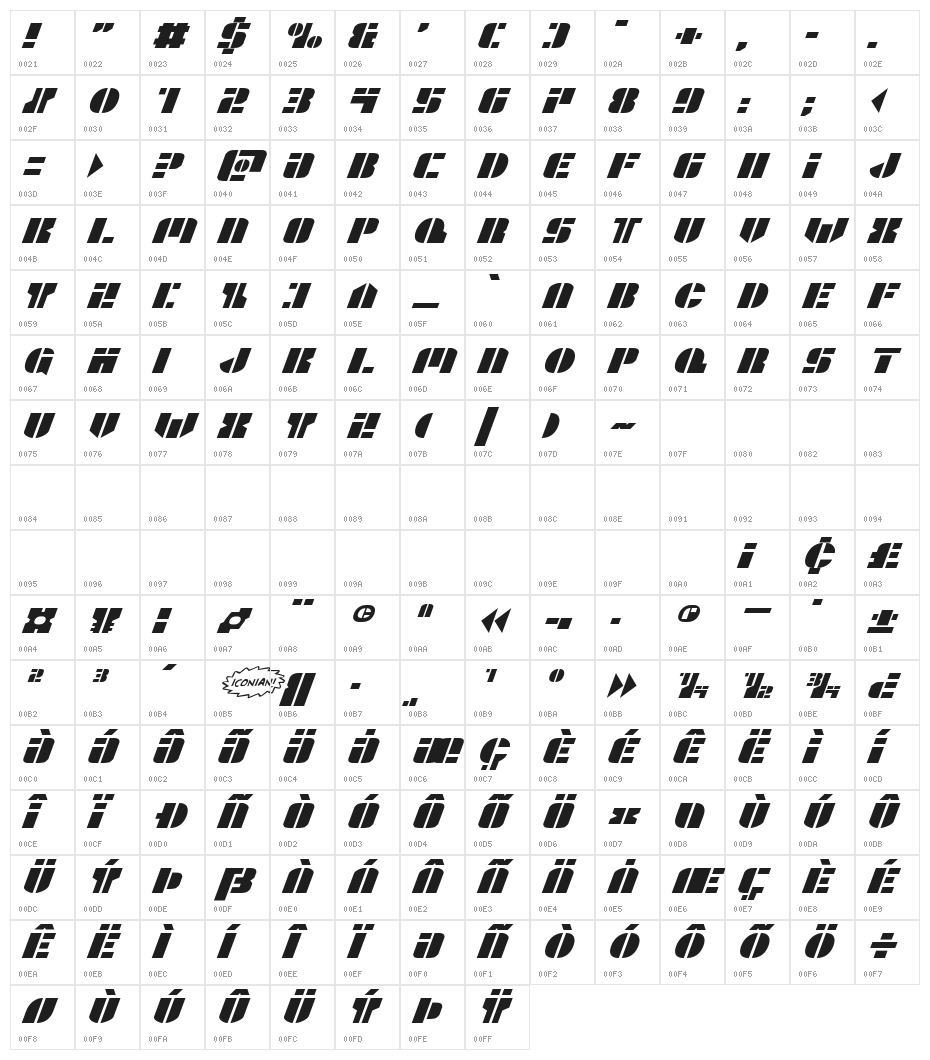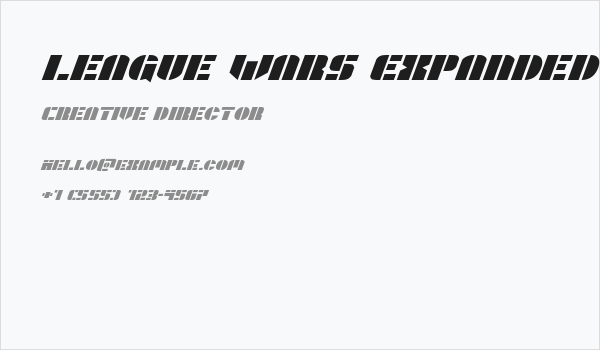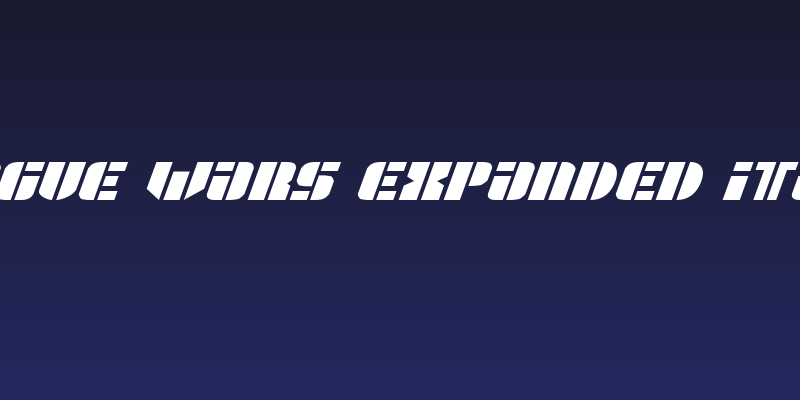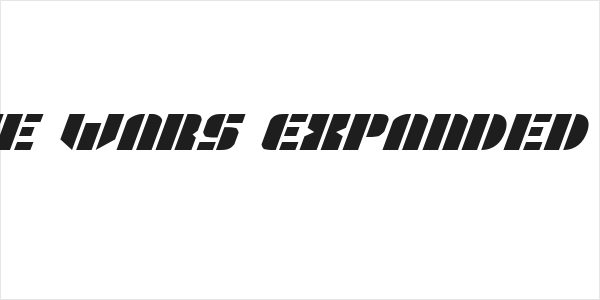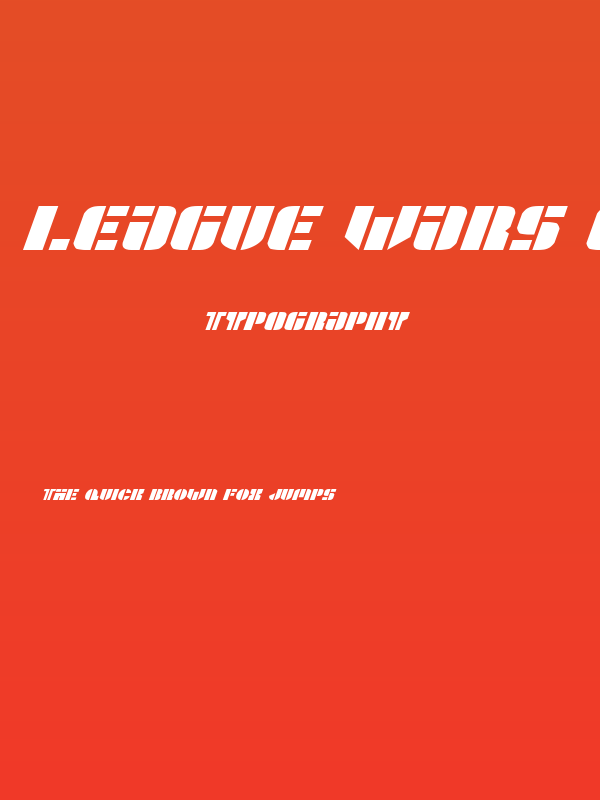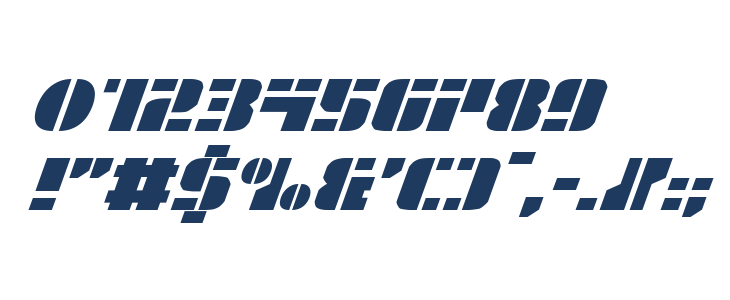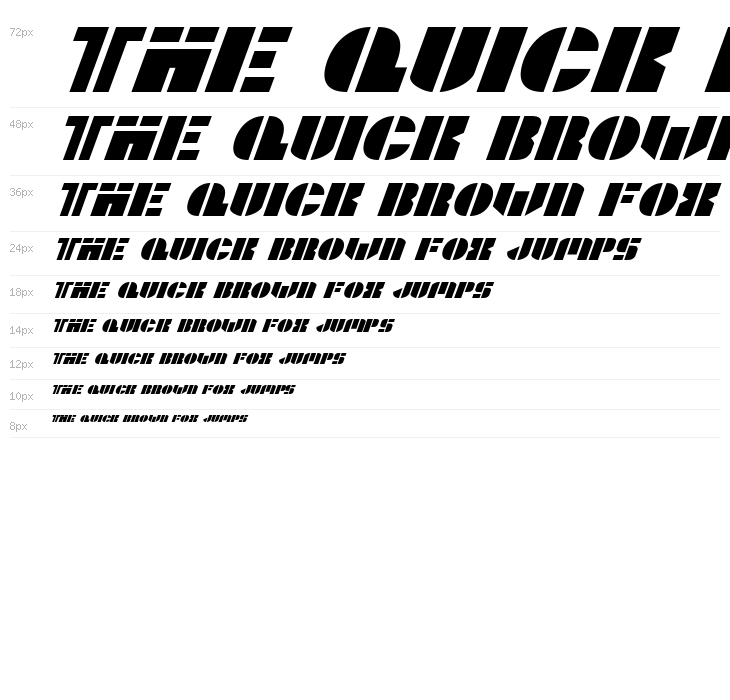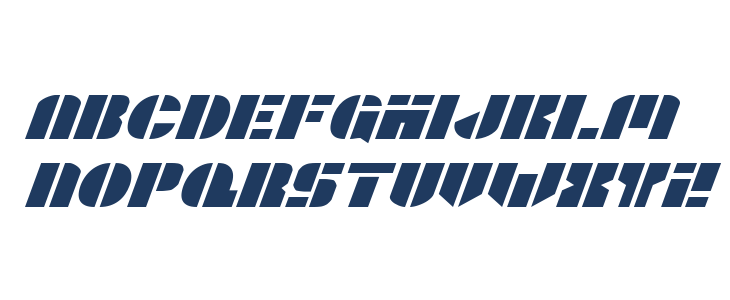
League Wars Expanded Italic Font
League Wars Expanded Italic Description
This font features a bold and dynamic design with a futuristic flair. The characters are heavily stylized with sharp angles and a distinct slant, giving them a sense of motion and energy. The expanded width of the letters enhances their presence, making them ideal for attention-grabbing headlines or titles. The font's unique cut-out sections within each character add an extra layer of visual interest, creating a sense of depth and complexity. The overall style is modern and edgy, suitable for projects that require a strong and impactful visual statement.
| Proposed Projects | Ideal for sci-fi themed designs, video game titles, movie posters, and branding that requires a modern and bold aesthetic. |